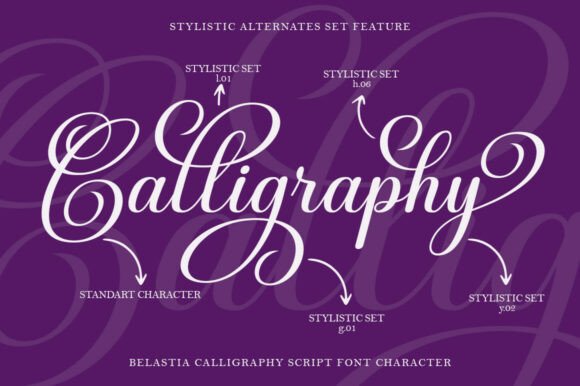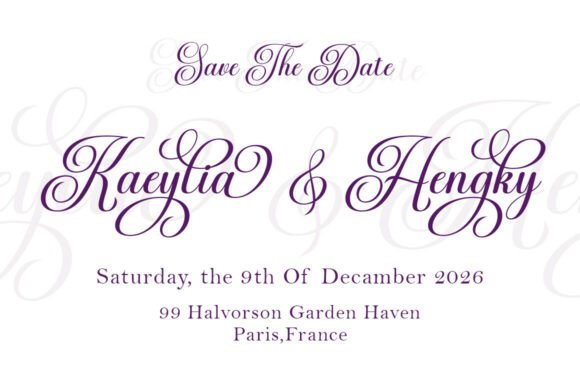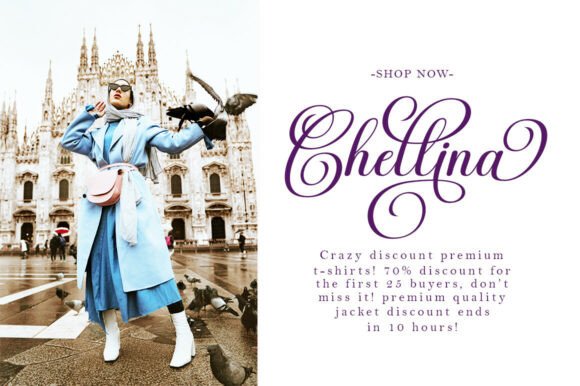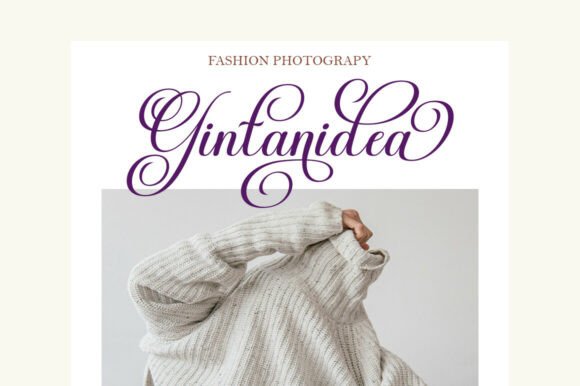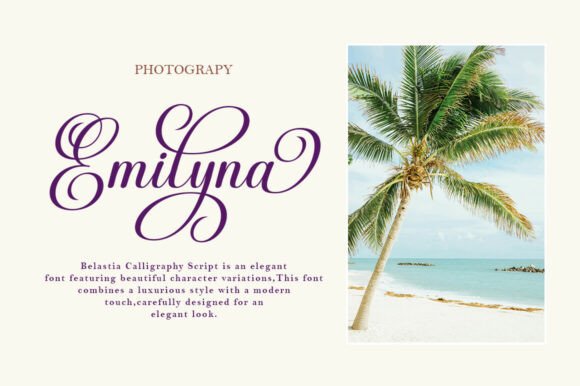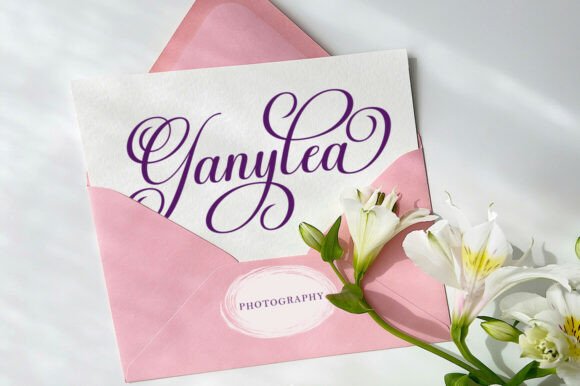
Introducing Belastia Calligraphy Font: Elevate Your Designs with Elegance and Sophistication
Are you looking for a font that exudes luxury, elegance, and sophistication? Look no further than Belastia Calligraphy Font, an exquisite script font that seamlessly blends classic decorative copperplate calligraphy with a bold, modern twist. Designed with meticulous attention to detail, Belastia Calligraphy is the perfect choice for designers and crafters seeking to add a touch of refinement to their projects.
The Charm of Classic Copperplate Calligraphy
Belastia Calligraphy Font draws inspiration from the timeless beauty of classic copperplate calligraphy, a style renowned for its intricate lettering and elegant flourishes. This traditional technique, often used in formal invitations and luxury branding, evokes a sense of nostalgia and sophistication. By incorporating these classic elements, Belastia Calligraphy Font brings a sense of heritage and tradition to your designs.
A Bold, Modern Touch
While Belastia Calligraphy Font pays homage to traditional copperplate calligraphy, it also boasts a bold, modern touch that sets it apart from more traditional typefaces. The font’s clean lines, precise lettering, and beautiful connections create a sense of fluidity and movement, making it perfect for designs that require a touch of contemporary flair.
Key Features of Belastia Calligraphy Font
So, what makes Belastia Calligraphy Font so special? Here are just a few of its key features:
- Bold and Clean: Belastia Calligraphy Font features bold, clean lines that make it easy to read and visually striking.
- Feminine and Sensual: The font’s elegant curves and flowing connections evoke a sense of femininity and sensuality, making it perfect for designs that require a touch of glamour.
- Beautiful Letter Connections: Belastia Calligraphy Font features a range of beautiful letter connections and stylistic alternatives, allowing you to create unique and customized designs.
- Versatile: This font is incredibly versatile, making it suitable for a wide range of applications, from formal wedding invitations to creative branding and advertising materials.
Ideal Applications for Belastia Calligraphy Font
So, what can you use Belastia Calligraphy Font for? The possibilities are endless! Here are just a few ideas to get you started:
- Wedding Invitations: Add a touch of luxury and elegance to your wedding invitations with Belastia Calligraphy Font.
- Branding: Use Belastia Calligraphy Font to create sophisticated and memorable brand identities that exude style and refinement.
- Restaurant Menus: Elevate your restaurant’s menu with a touch of elegance and sophistication, perfect for fine dining establishments.
- Logos: Create stunning logos that make a lasting impression with Belastia Calligraphy Font.
- Fashion and Beauty Packaging: Add a touch of glamour to your fashion and beauty packaging with this exquisite font.
- Greeting Cards and Stationery: Create beautiful greeting cards and stationery that showcase your personal style and elegance.
- Book Covers and Magazines: Use Belastia Calligraphy Font to create eye-catching book covers and magazine titles that demand attention.
- Advertising Materials: Elevate your advertising materials with a touch of sophistication and luxury, perfect for high-end brands.
In conclusion, Belastia Calligraphy Font is an exceptional script font that offers the perfect blend of classic elegance and modern sophistication. With its bold, clean lines, beautiful letter connections, and versatile design, this font is ideal for designers and crafters seeking to add a touch of luxury to their projects. Whether you’re working on a wedding invitation, branding campaign, or advertising materials, Belastia Calligraphy Font is sure to impress. So why wait? Discover the beauty and elegance of Belastia Calligraphy Font today and take your designs to the next level!